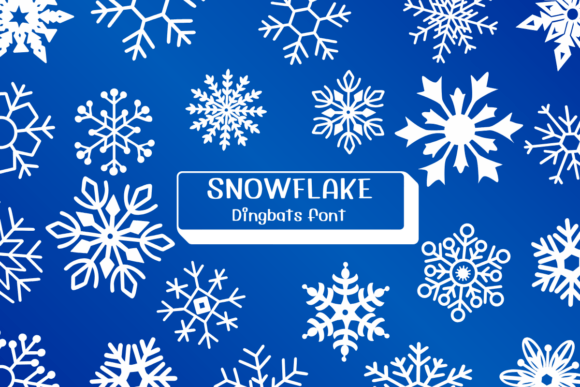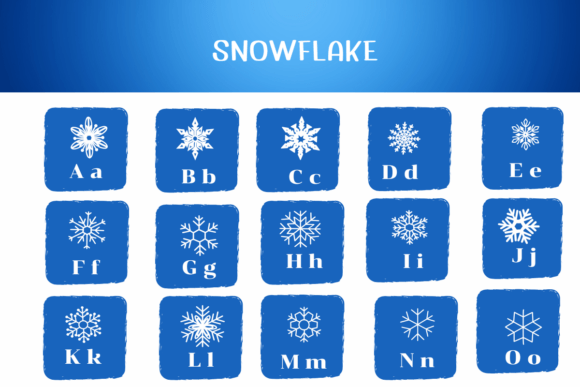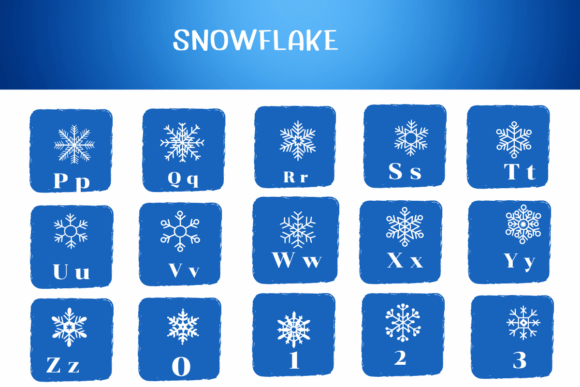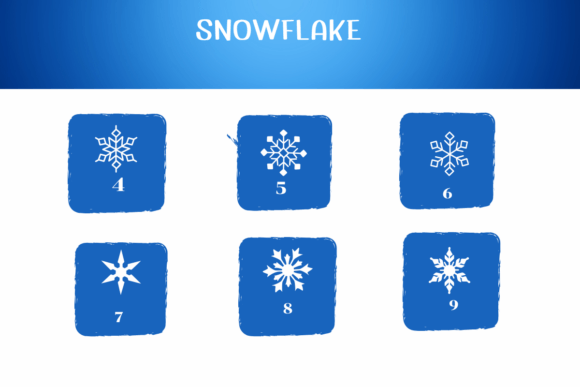
Snowflake Font
About the Snowflake Font
Meet Snowflake Font, a stunning font that brings a touch of elegance and professionalism to any design. Snowflake is a fun dingbat font featuring unique snowflake designs. Each letter or symbol creates a different snowflake, perfect for adding a wintery touch to your projects like cards, invitations, or decorations.